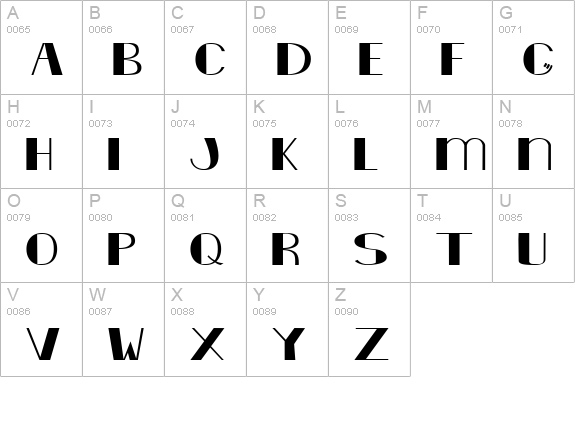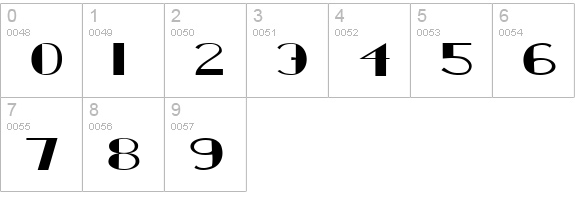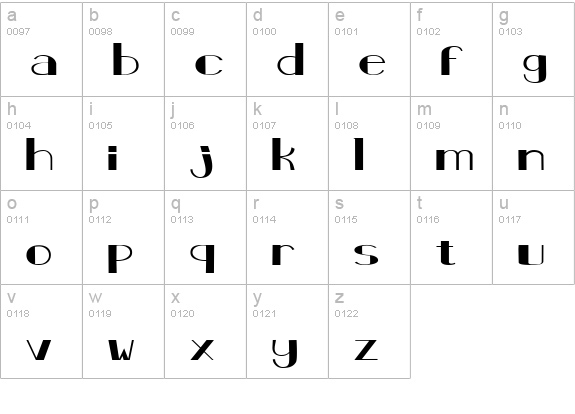
Deco Card font is a stunning display typeface that captures the essence of art deco design with its elegant and intricate letterforms. This font is perfect for adding a touch of sophistication and vintage charm to your designs. With its clean lines and bold strokes, Deco Card font exudes a sense of luxury and refinement. It is reminiscent of the glamorous era of the 1920s and 1930s, where art deco architecture and design flourished. This font is versatile and can be used in a variety of design projects, including logos, headlines, posters, invitations, and more. Its unique and eye-catching letterforms are sure to make a statement and attract attention. One of the best things about Deco Card font is that it is free to download at FontsMarket.com. You can easily access this font and incorporate it into your designs without any hassle. Whether you are a professional designer or a hobbyist, this font is a great addition to your font collection. Deco Card font is available in multiple weights and styles, giving you the flexibility to choose the perfect one for your project. Its characters are well-designed and easily readable, making it suitable for both print and digital media. So, if you are looking for a font that combines elegance, vintage charm, and versatility, look no further than Deco Card font. Download it for free at FontsMarket.com and let your creativity shine with this stunning typeface.